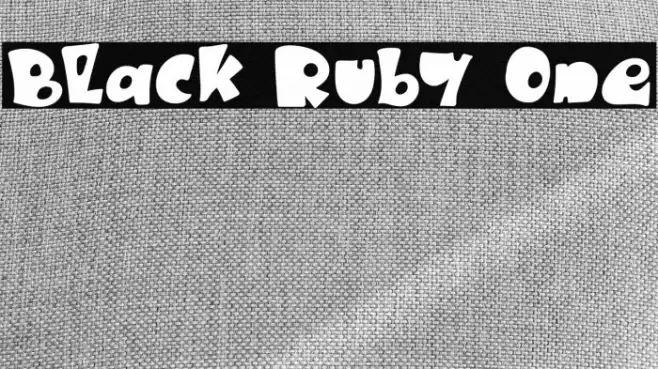
Black Ruby One Font
Black Ruby One Description
This font features a bold and playful style with exaggerated curves and thick strokes. The characters have a whimsical, cartoon-like appearance, making them stand out with their unique and artistic flair. The uppercase and lowercase letters maintain a consistent weight, contributing to a cohesive look. The font's design is characterized by its chunky and rounded forms, which give it a friendly and approachable feel. The absence of sharp edges and the presence of smooth, flowing lines enhance its decorative nature, making it suitable for creative and informal applications.
A bold, playful font with exaggerated curves and a whimsical style from Cartoon fonts.
- Proposed Projects: Ideal for children's books, playful branding, posters, and creative projects.
- Overall Style: Playful, Whimsical, Decorative